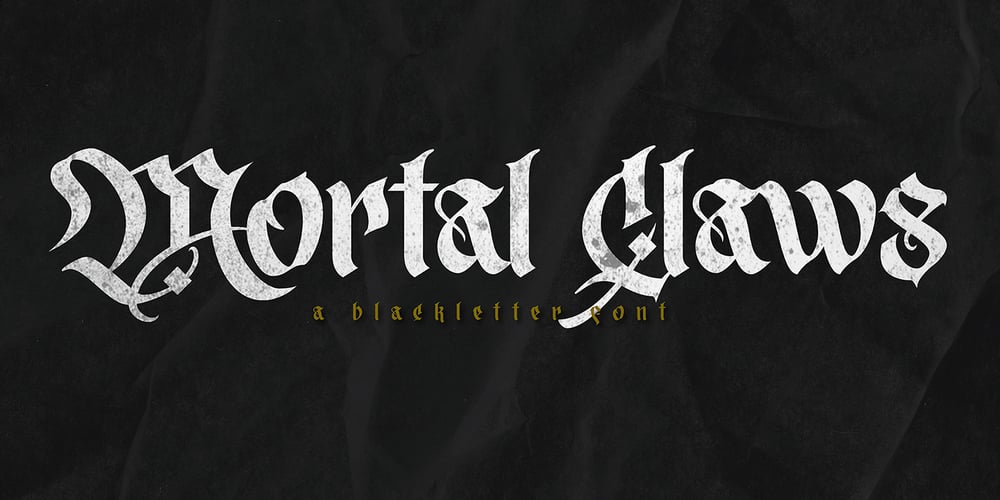
Mortal Claws Font Family was designed by Yahdi Kumala and published by Krakenbox Studio. Mortal Claws contains 2 styles and family package options. Corogh Gorge is a Blackletter Font. It has gothic, mysterious, brave, classic. It’s a great font for fashion, apparel projects, signature, album cover, logo, branding, magazine, social media, & advertisements, but also works great for other projects.